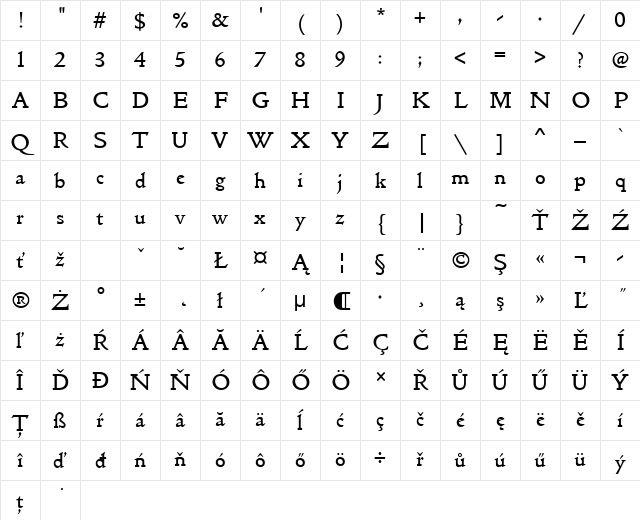
GoldenTypItcTEE Regular
Complete GoldenTypItcTEE Regular glyph index. Displaying only characters natively supported by GoldenTypItcTEE Regular font.
Design Context for GoldenTypItcTEE
GoldenTypItcTEE is a composed and adaptable typeface that performs quietly and consistently across a wide range of design contexts.